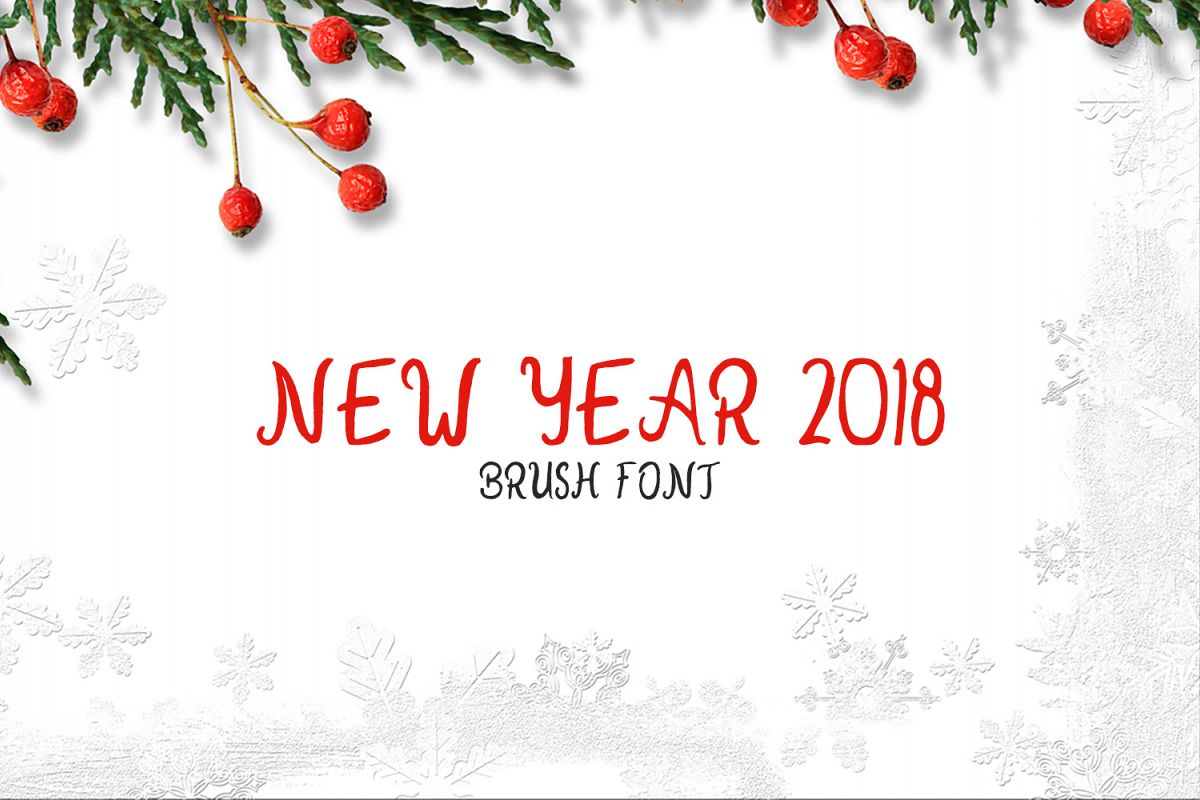
New Year 2018 Brush Font
NewYear2018-Regular
New Year 2018 is a handwritten brush font crafted with love. This font is so perfectly imperfect font to put a personal feel into anything you’re working on. It comes up with a complete set of Lowercase, Uppercase, Numbers and Alternates. It is Perfect for logos, quotes, badges, labels, packaging design, blog, websites, designs, headlines, banners, posters, printings, T-shirts, magazines, promotional product, templates, etc.